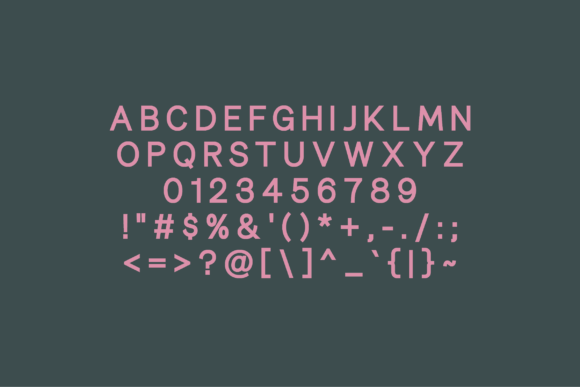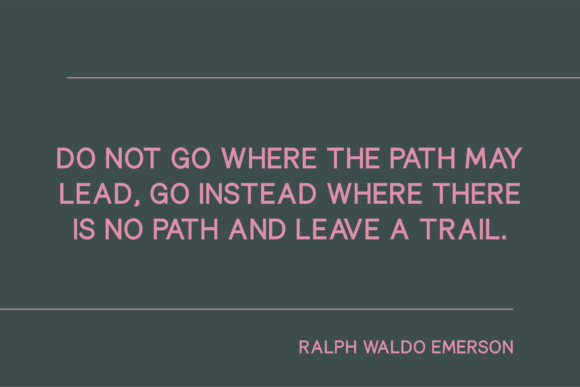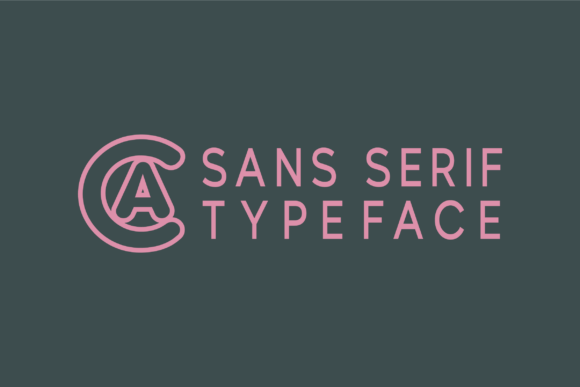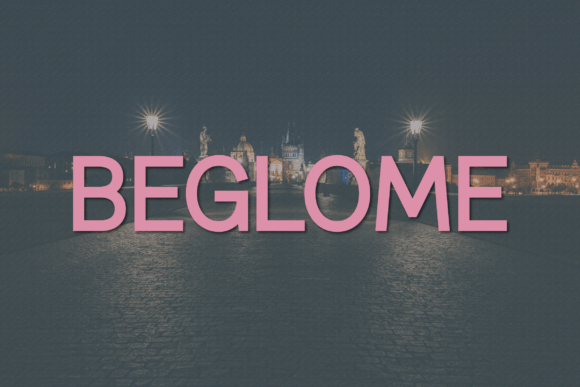
Introducing Beglome: The Ultimate Modern Sans Serif Typeface
In the world of typography, a font can make all the difference in the aesthetic and tone of a design. For designers and crafters looking for a modern, classy sans serif typeface, look no further than Beglome. This versatile font is perfect for a wide range of applications, from logos and weddings to invitations, quotes, advertisements, and more.
What is Beglome?
Beglome is a sans serif typeface that boasts a clean and sleek design. It features upper characters, numbers 0-9, and a range of punctuation and symbols. This comprehensive character set makes it an ideal choice for designers who need a font that can handle a variety of text elements.
Key Features of Beglome
- Modern and Classy Design: Beglome’s sans serif design gives it a modern and sophisticated look that’s perfect for designs that require a touch of elegance.
- Comprehensive Character Set: With upper characters, numbers 0-9, and a range of punctuation and symbols, Beglome has everything you need to create professional-looking text.
- Versatility: Whether you’re designing a logo, invitation, or advertisement, Beglome’s versatility makes it an excellent choice.
Use Cases for Beglome
Beglome’s versatility makes it suitable for a wide range of applications, including:
- Logos: Create a professional and modern logo with Beglome’s clean and sleek design.
- Weddings and Invitations: Add a touch of elegance to your wedding or event invitations with Beglome’s classy sans serif design.
- Quotes and Advertisements: Use Beglome to create eye-catching quotes and advertisements that grab attention.
- Print and Magazines: Beglome is perfect for print designs, including magazines, brochures, and more.
Why Choose Beglome?
With so many fonts available, why choose Beglome? Here are just a few reasons:
- Unique and Modern Design: Beglome’s design sets it apart from other sans serif typefaces, making it perfect for designers looking for something fresh and modern.
- Ease of Use: With a comprehensive character set and clean design, Beglome is easy to use and works seamlessly with a variety of design applications.
Tips for Using Beglome
To get the most out of Beglome, here are a few tips:
- Experiment with Font Sizes: Beglome works well at a variety of font sizes, so don’t be afraid to experiment to find the perfect size for your design.
- Pair with Other Fonts: Beglome pairs well with other sans serif and serif fonts, making it easy to create visually appealing combinations.
- Use for Body Text and Headings: Beglome’s clean design makes it suitable for both body text and headings, making it a great choice for longer designs.
Beglome is a modern, classy sans serif typeface that’s perfect for designers and crafters looking for a versatile font. With its comprehensive character set, clean design, and ease of use, Beglome is an excellent choice for a wide range of applications. Whether you’re designing a logo, invitation, or advertisement, Beglome is sure to impress.